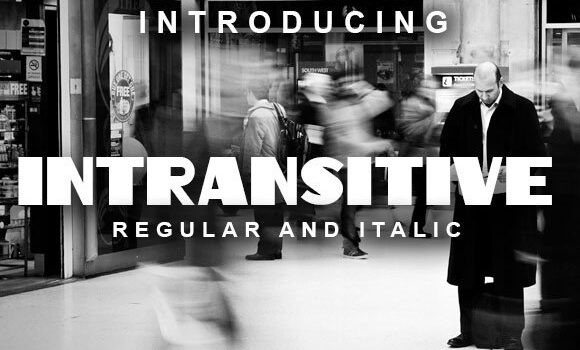
Intransitive Font – Free Download Introduction to Intransitive Font Intransitive is an elegant retro font that comes in Regular and Italic variants. 📸 Preview Gallery 1 image 📌 Product Name Intransitive Font 👤 Author vladimirnikolic 📂 Category Explore ⬇️ Download